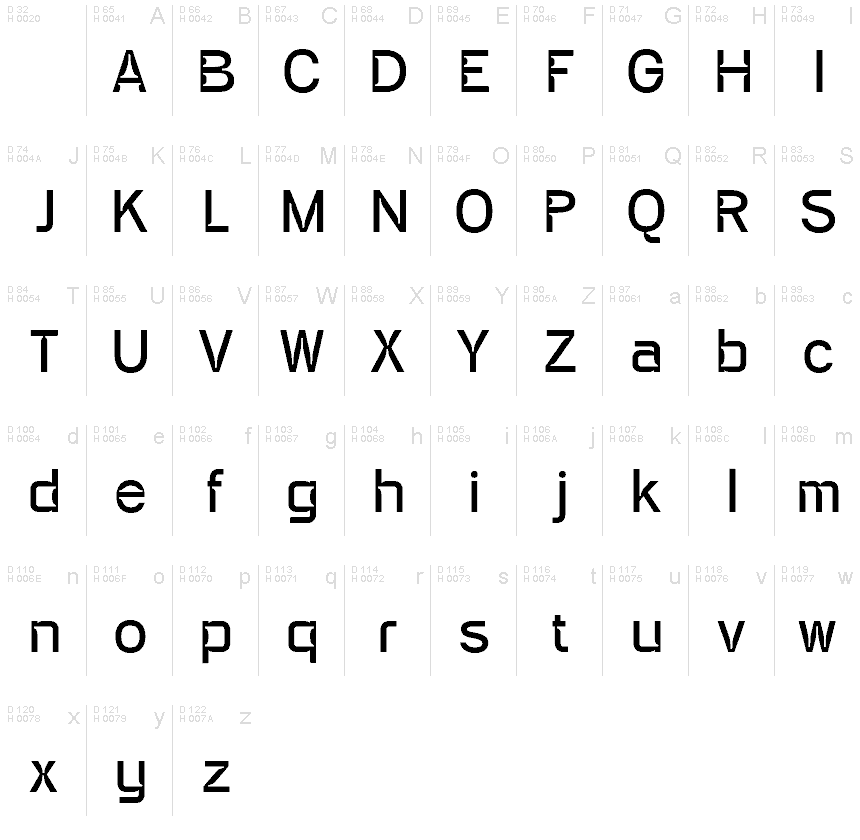
CS Balmenti Demo Regular
CS Balmenti font by Craft Supply Co is a modern display typeface that embraces geometric influences. The sophisticated characters benefit from their clean lines and tech-inspired aesthetic, created through a minimalist approach. Utilize its smooth flowing letterforms and stylish look available to all as a free display font.
CS Balmenti will be outstanding in modern websites, magazines, advertisements, fashion posts, UX/UI projects, branding designs, social media covers and posts. More incredible uses include movie covers and posters, books front pages and back covers products packaging and labels.